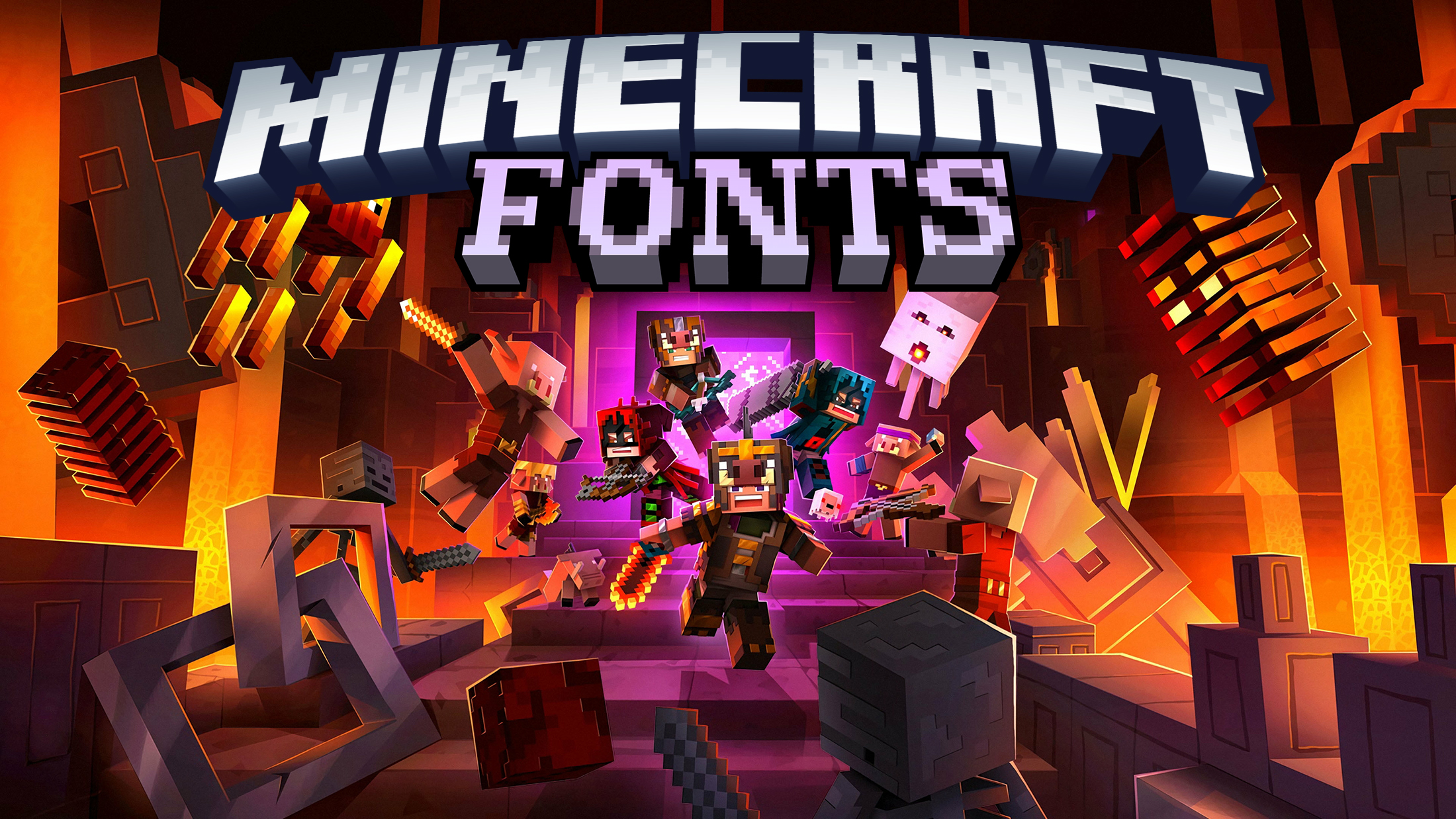
All Minecraft Fonts is a complete set of 22 fonts used in Minecraft and designed to closely resemble Minecraft’s font style. Featuring a pixelated, retro aesthetic, they support Unicode or emulate an 8-bit look. Ideal for designing banners, use in resource packs, or creative video projects, and more.